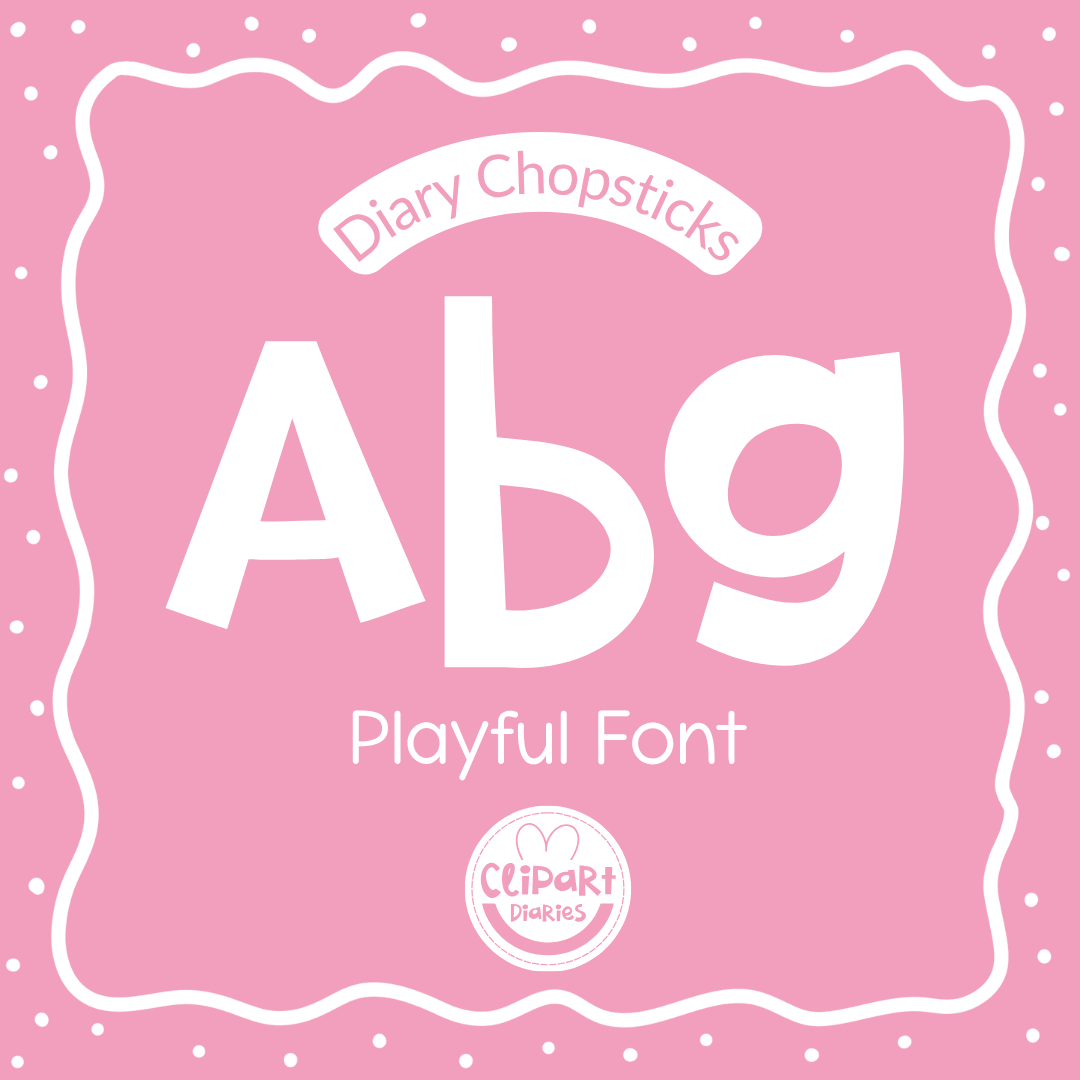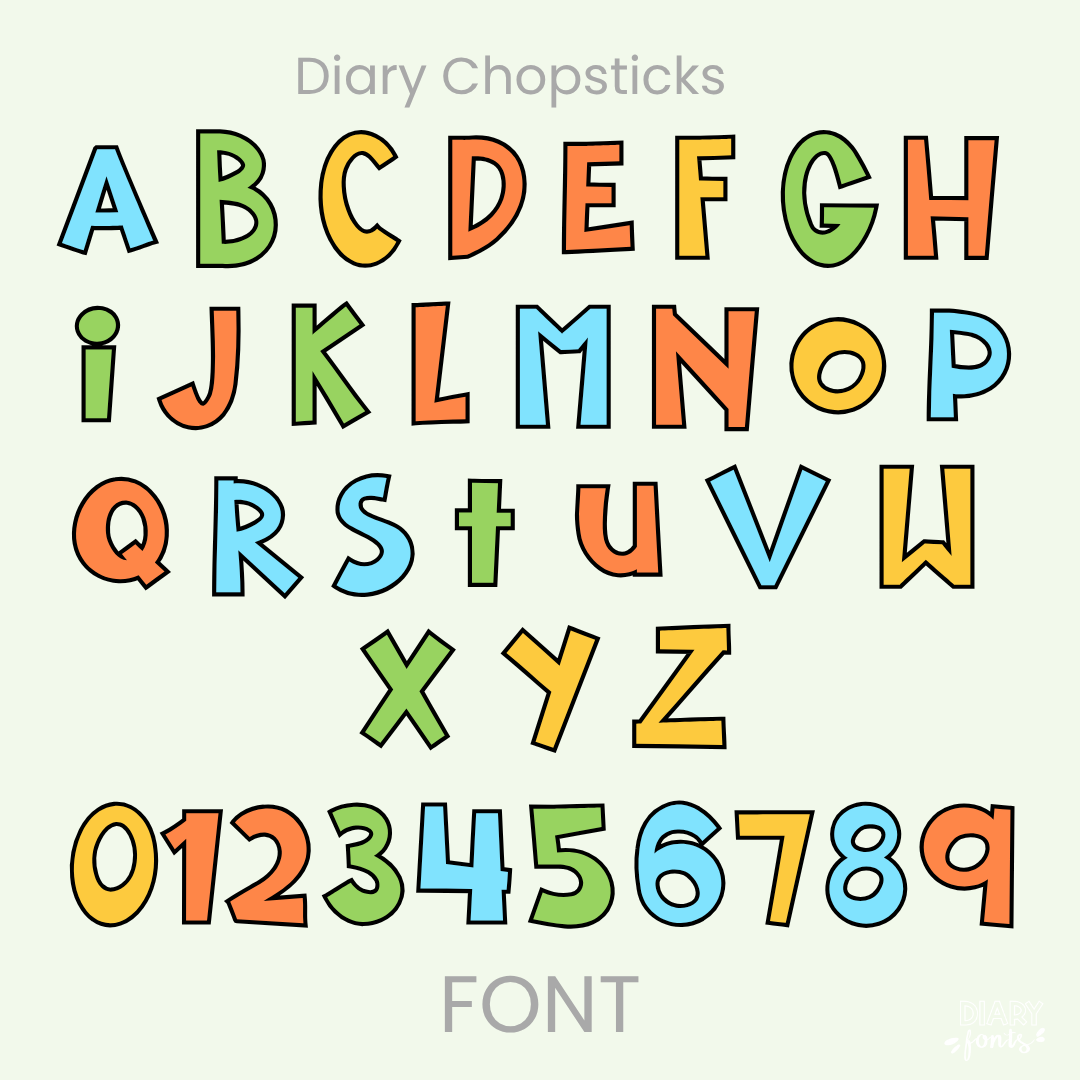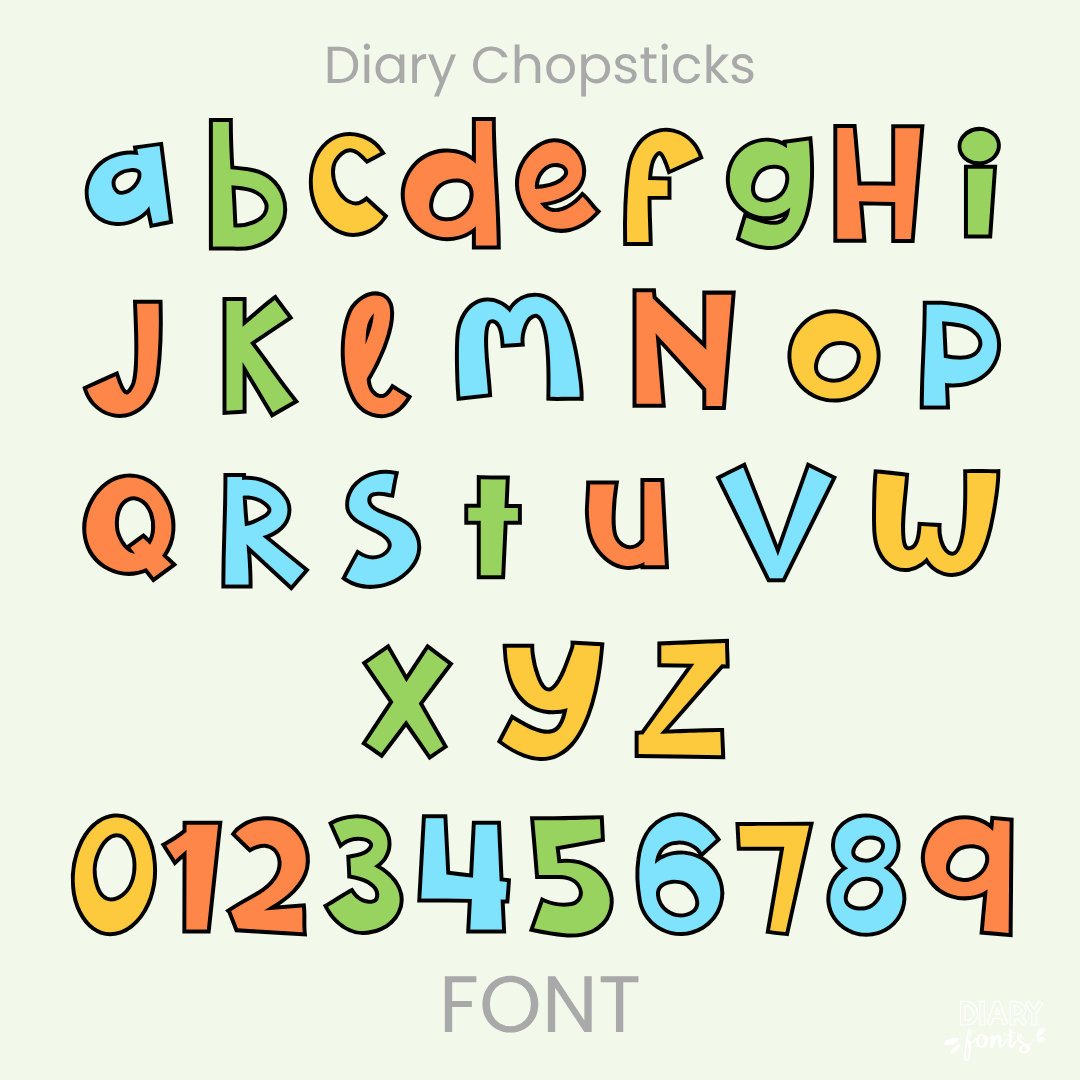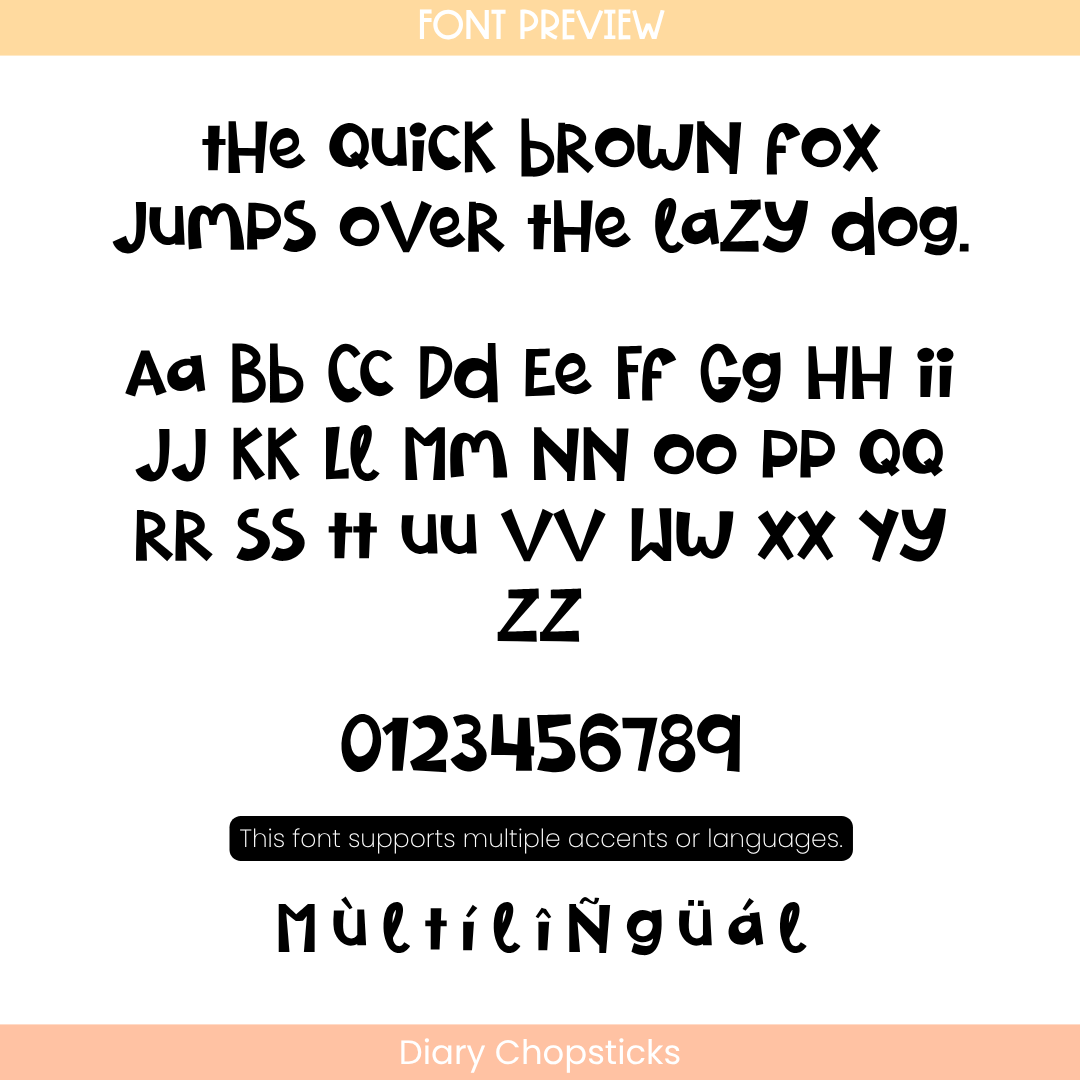
The Diary Chopsticks is a playful and rhythmic handwritten font with a unique, stylized look that adds a creative energy to your digital resources and classroom materials.
If you want to add an eye-catching and distinctive touch to your designs, Diary Chopsticks is a great pick. Looking at the letter styles, it features a mix of very straight, sharp lines and angular strokes that give it a “hand-cut” appearance. The uppercase letters are uniform in height and very geometric, while the lowercase letters keep that same rhythmic, blocky feel. This style is wonderful for themed classroom decor, bold titles on worksheets, or making important announcements stand out on digital slides.
The font includes a full set of uppercase and lowercase layouts, numbers, and multiple accents to support different languages. It is ready for use in Canva, MS Office, and Adobe Apps, and it works flawlessly on the iPad with GoodNotes and Procreate. Whether for your own students or for commercial resource templates, this font adds a fun and memorable vibe to any project.